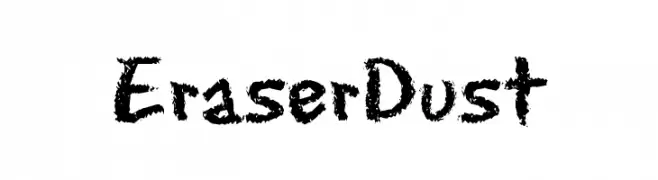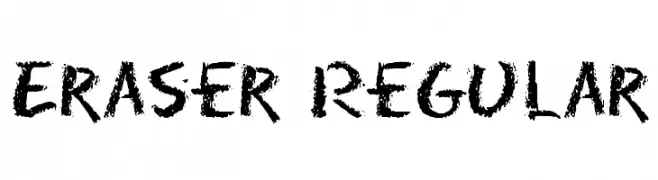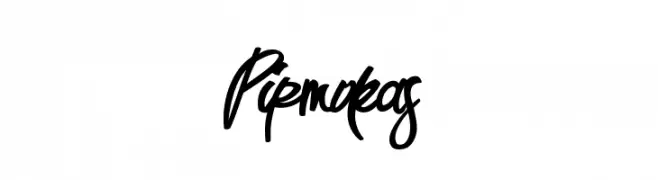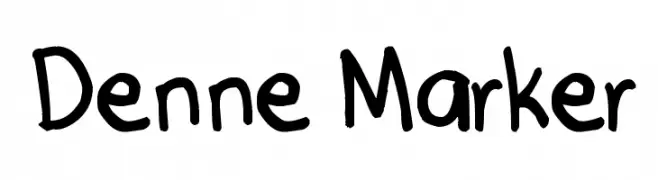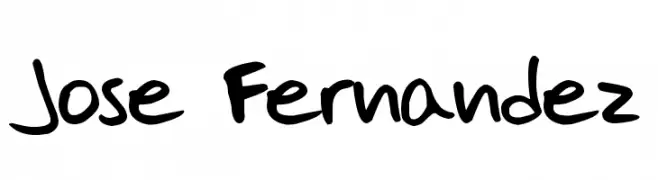
( Fonts by David Rakowski )
A textured, hand-drawn font with a playful, chalk-like appearance.
( Fonts by David Rakowski )
A textured, playful font with a chalk-like appearance.
( Fonts by Rokas Cicenas - www.roci.lt )
A bold, energetic handwritten font with expressive strokes and a lively appearance.
( Fonts by Emerald City Fontwerks )
A dynamic, expressive handwritten font with fluid, cursive letterforms and artistic flourishes.
A playful, hand-drawn marker-style font with bold, rounded strokes.